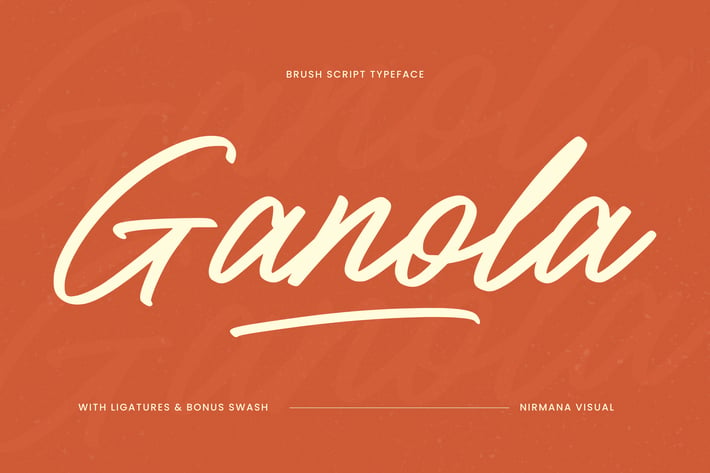
Ganola Brush - Branding Logo Font
Ganola Brush Font offers beautiful typographic harmony for a diversity of design projects, including logos & branding, social media posts, advertisements & product designs.